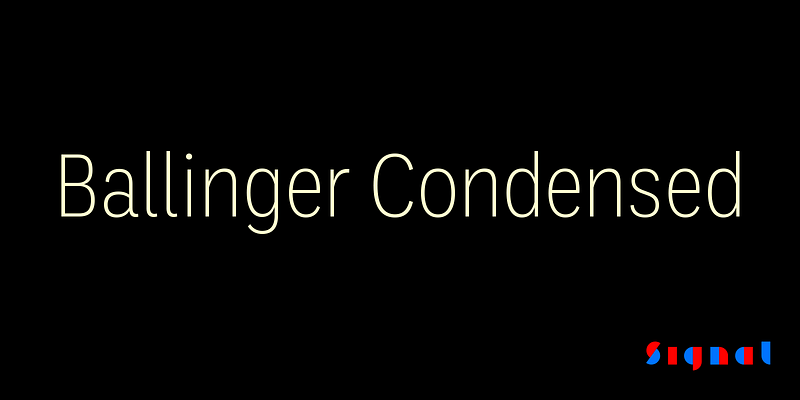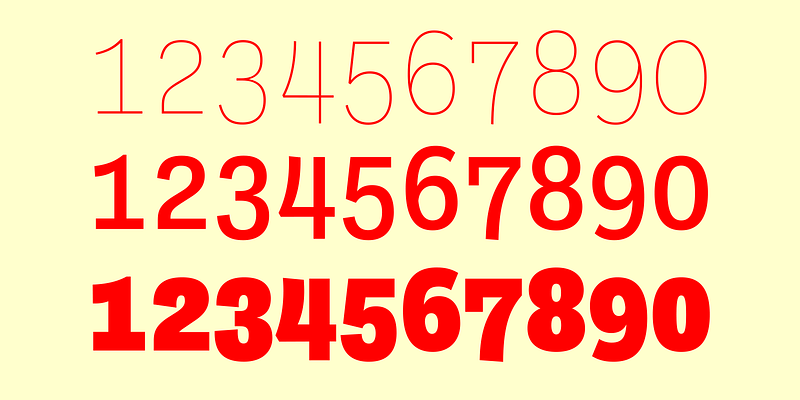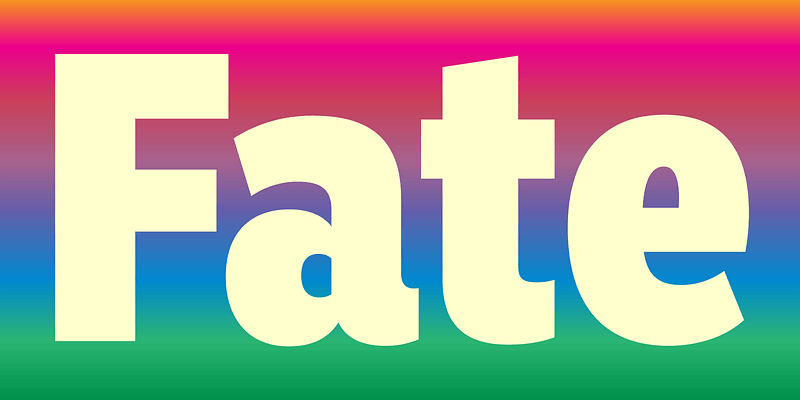
While Ballinger’s eight Condensed styles are designed for impact, we took care to balance them for continuous reading, making them ideal for applications where space is at a premium. Features include semi-oldstyle figures and case-sensitive punctuation and delimiters. Also available in full-width, extra-condensed, and monospaced versions.